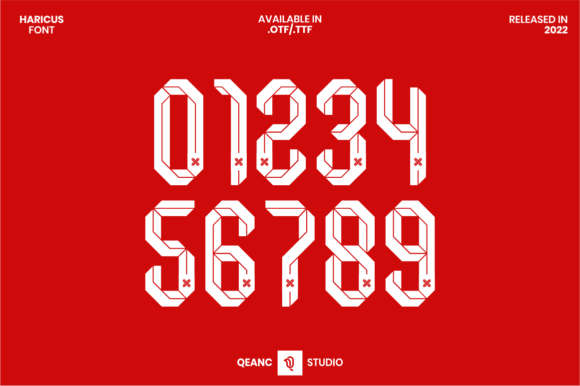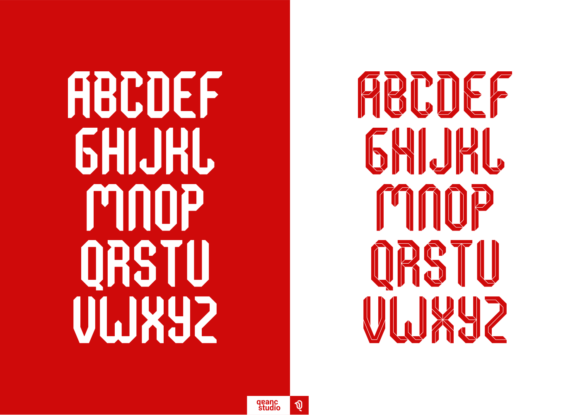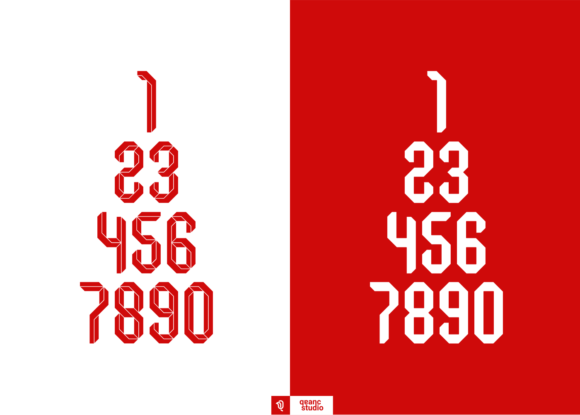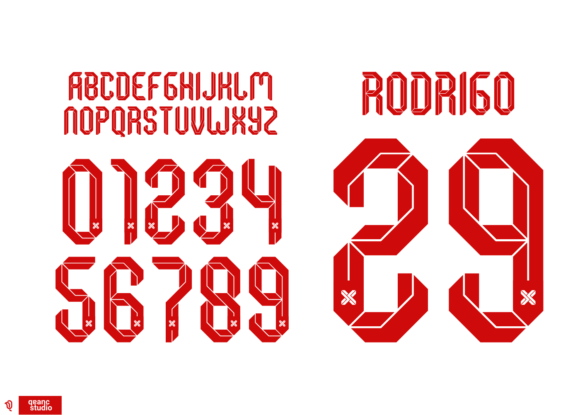
Haricus Font: A Bold Display Font for Sport Logos & Posters
About the Haricus Font
Unleash your creativity with Haricus Font, a versatile font perfect for a wide range of applications. Haricus is a cool display font inspired by football. It is the perfect font for any sport or racing-themed projects, such as logos, posters, or t-shirts. Add this font to your creative ideas and notice how it will make them stand out!
Harius excels in headlines, logos, and short, impactful text for projects needing a bold, energetic feel. Its strong forms work particularly well for sports-related branding, posters, and merchandise where a dynamic and slightly aggressive personality is desired. Avoid using Haricus for body text or lengthy paragraphs; its highly stylized forms are not optimized for readability in extended use.
Pairing Haricus effectively requires considering its robust character. A clean sans-serif like Open Sans or a neutral serif such as Lora will provide a strong contrast and enhance readability when used alongside it in multi-font designs. For a more playful approach, a rounded geometric sans-serif could be considered, but this should be selected carefully to avoid overwhelming the bold energy of Haricus.
The overall personality of Haricus is best described as bold, powerful, and dynamic. It is ideal for brands projecting strength, speed, and competition—think sports teams, automotive companies, or energy drinks. Its impactful forms lend themselves to designs that require immediate attention and visual impact.
Haricus Font Usage Examples
Haricus Font Example